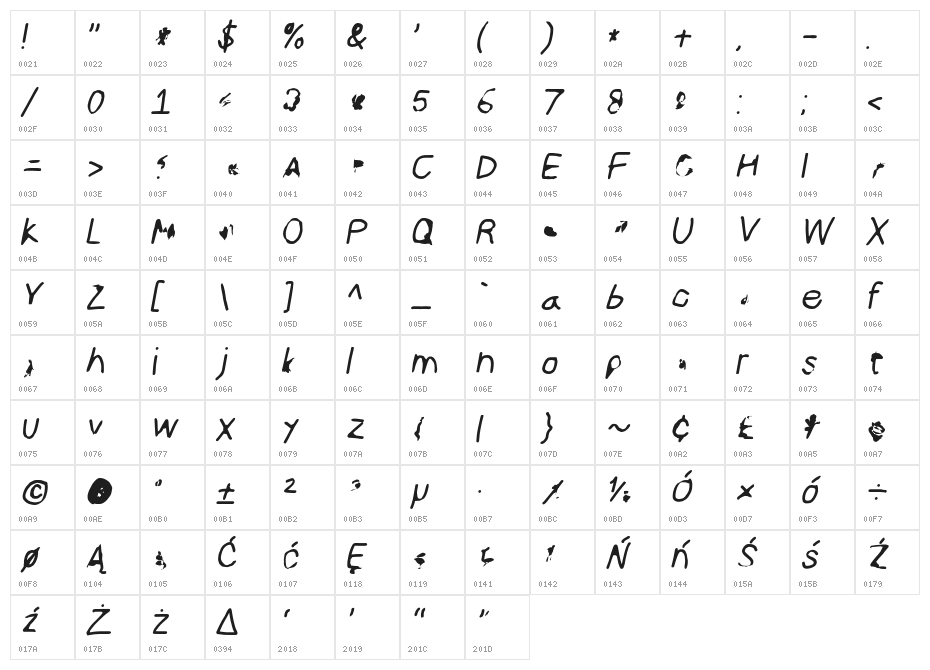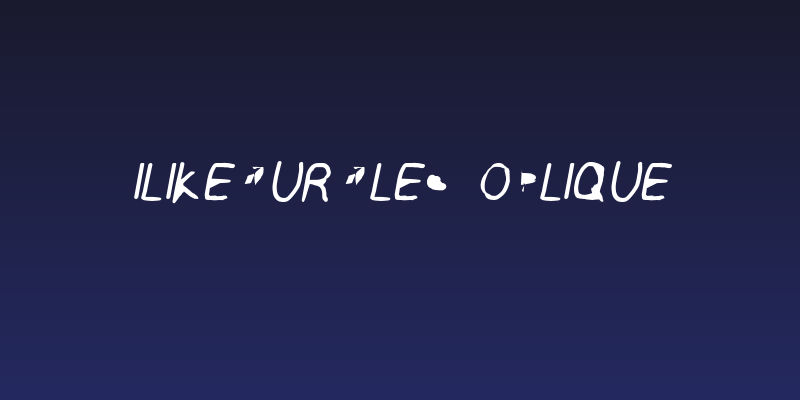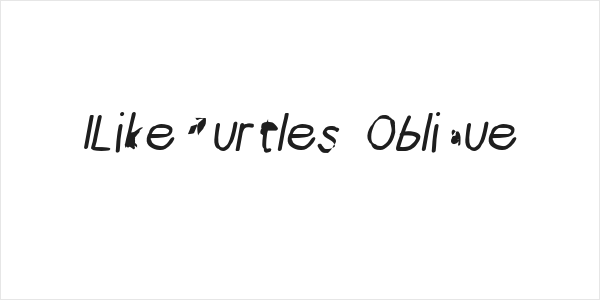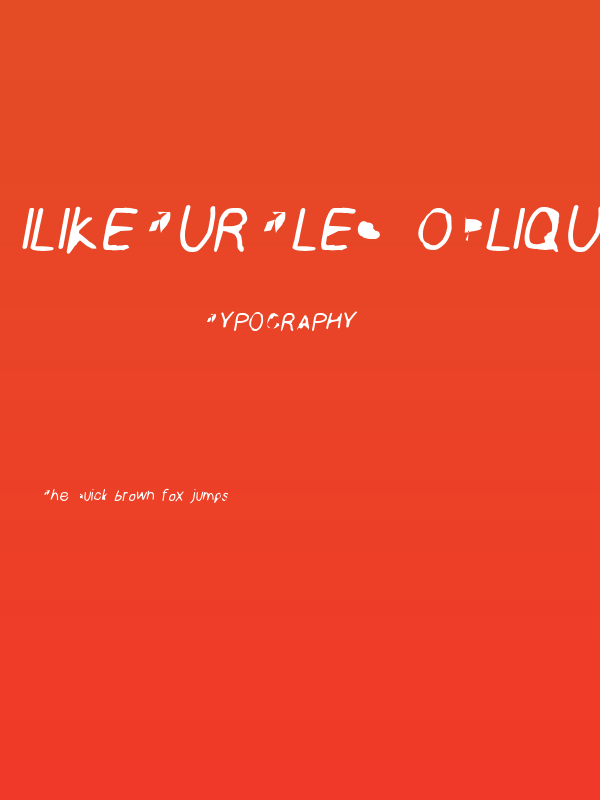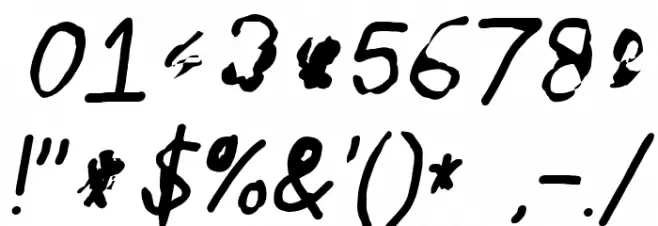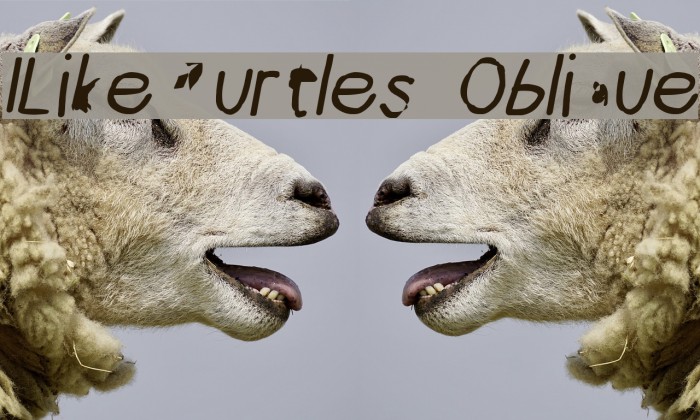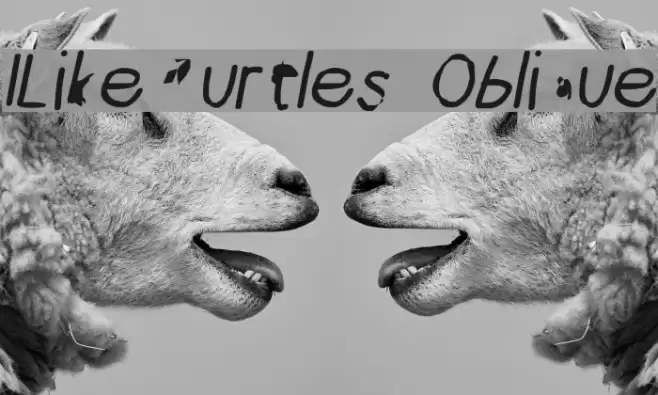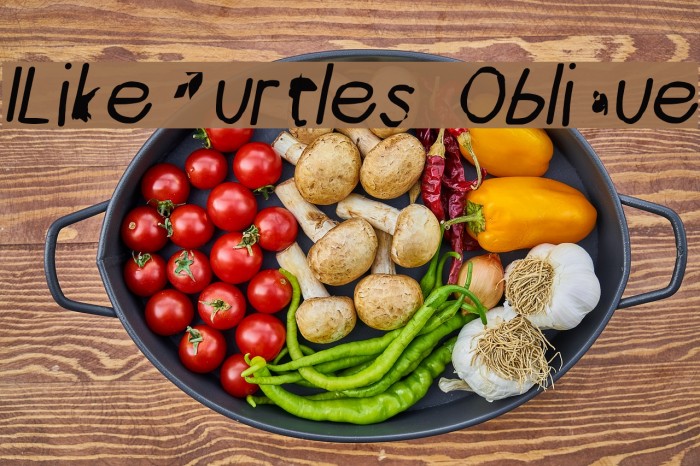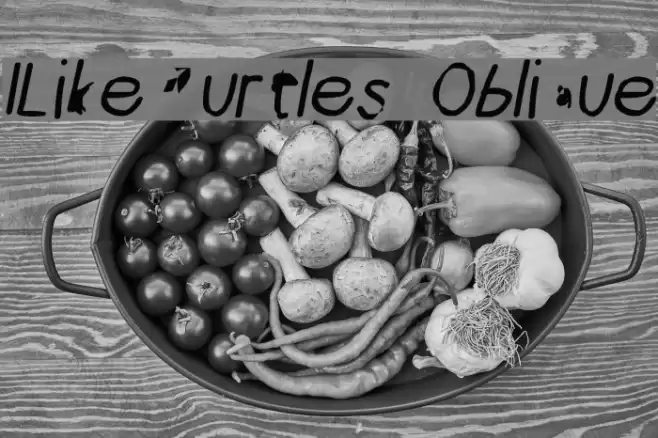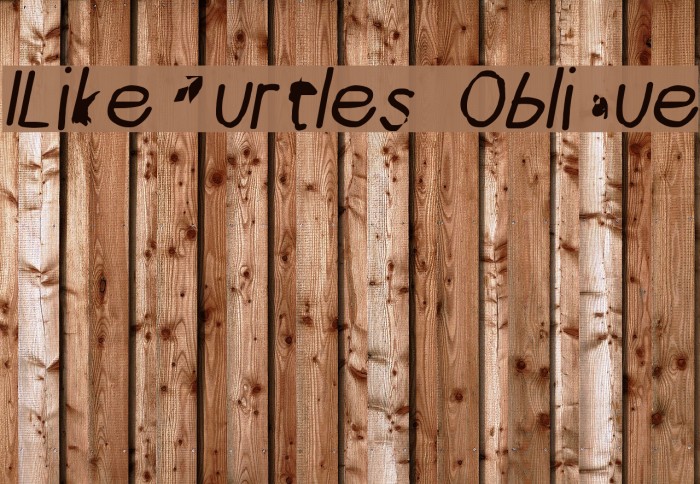
ILikeTurtles Oblique Font
This font features a playful and dynamic handwritten style with a slightly oblique orientation. The characters exhibit a casual and informal appearance, with irregular strokes and varying thicknesses that add a sense of movement and energy. The uppercase and lowercase letters maintain a consistent style, while the numbers and special characters complement the overall design. The font's unique character shapes and whimsical flair make it stand out, offering a creative and artistic touch to any project.
| Use Case | Logos, Posters, Creative projects |
| Proposed Projects | Ideal for creative projects such as greeting cards, children's books, playful branding, and artistic posters. |